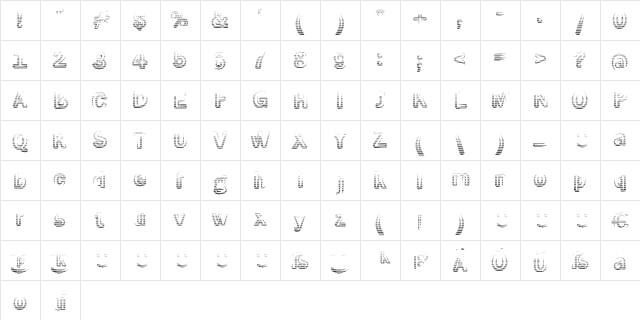
Smoke-Rasterized Regular
Design Context for Smoke-Rasterized Typeface
Smoke-Rasterized is a composed and adaptable typeface that performs quietly and consistently across a wide range of design contexts.